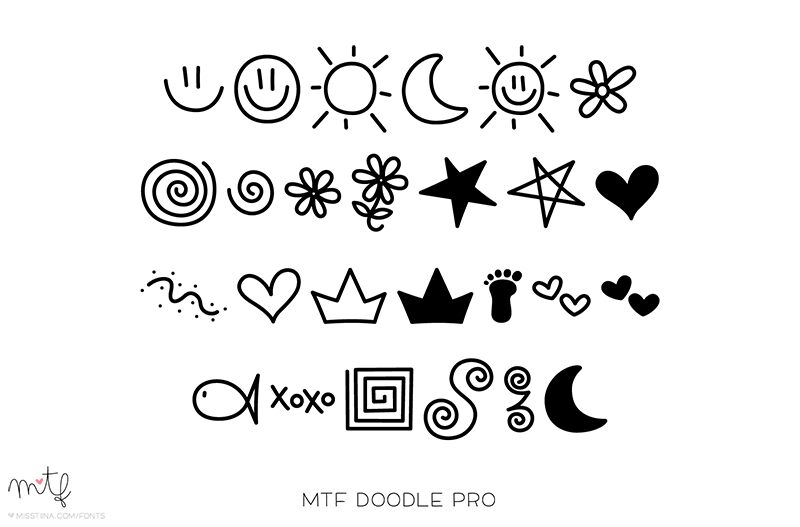
MTF Doodle
MTF Doodle is a whimsical dingbats font designed by Miss Tiina Fonts. This fun and playful cartoon font features a collection of various doodles, including suns, moons, flowers, hearts, stars, footprints, and more. With its charming style and adorable illustrations, MTF Doodle is perfect for children's books, greeting cards, party invitations, scrapbooking projects, and any design that needs a touch of cuteness. Let your imagination run wild with this delightful font and bring joy to your creative endeavors!